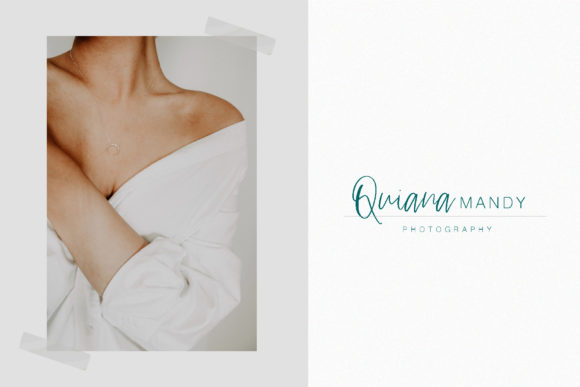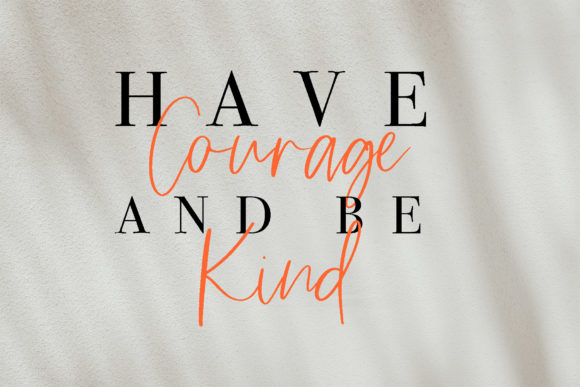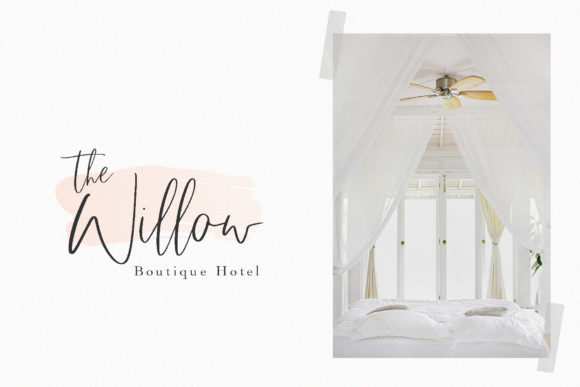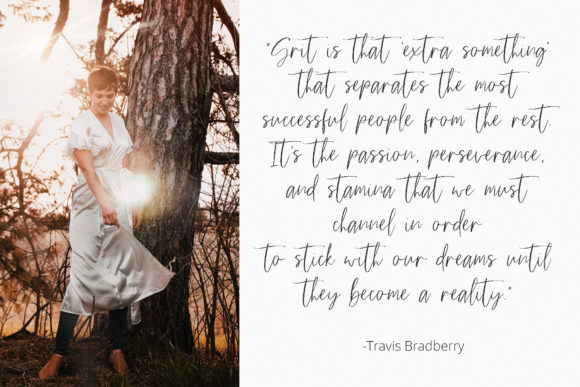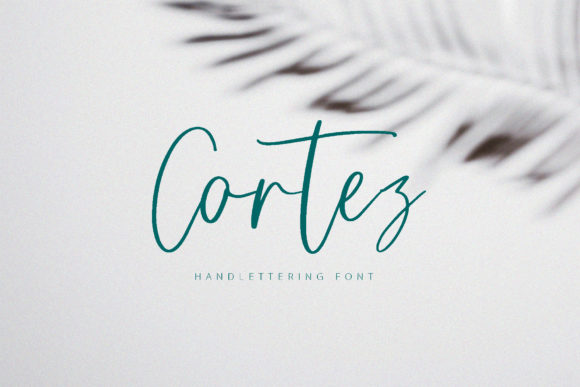
Cortez Font: Elevate Your Design with a Classy Script
Cortez is a stunning script font that exudes elegance and sophistication. With its stylish feel and versatility, it’s perfect for personal branding, design projects, and various creative endeavors. In this article, we’ll dive into the world of Cortez Font, exploring its features, uses, and benefits for designers and crafters.
The Essence of Cortez Font
Cortez is a carefully crafted script font that boasts a unique blend of classic and modern elements. Its flowing lines, intricate details, and refined aesthetic make it an excellent choice for designs that require a touch of luxury and sophistication. Whether you’re working on a personal branding project, a wedding invitation, or a high-end product label, Cortez Font is sure to impress.
Key Features of Cortez Font
- Stylish Feel: Cortez Font features a stylish and modern feel that sets it apart from other script fonts.
- Elegant Lines: The font’s flowing lines and intricate details create a sense of elegance and sophistication.
- Versatility: Cortez Font is perfect for a wide range of design projects, from personal branding to packaging and advertising.
- Easy to Read: Despite its ornate details, Cortez Font remains easy to read, making it suitable for body text and headlines.
Uses of Cortez Font
Cortez Font is an incredibly versatile typeface that can be used in various design projects, including:
- Personal Branding: Establish a luxurious and sophisticated brand identity with Cortez Font.
- Wedding Invitations: Add a touch of elegance to your wedding invitations and stationery.
- Packaging Design: Elevate your product packaging with a sophisticated and eye-catching label.
- Advertising: Create stunning ad campaigns with Cortez Font’s stylish and attention-grabbing aesthetic.
Cortez Font offers numerous benefits for designers and crafters, including:
- Time-Saving: With Cortez Font, you can create stunning designs quickly and efficiently.
- Unique Designs: The font’s distinctive style ensures that your designs stand out from the crowd.
- Easy to Customize: Cortez Font is easy to customize, allowing you to tailor it to your specific design needs.
- High-Quality: The font is crafted with high-quality code, ensuring that it looks great in any design.
Tips for Using Cortez Font
To get the most out of Cortez Font, follow these expert tips:
- Pair with Simple Fonts: Combine Cortez Font with simple fonts to create a striking contrast.
- Experiment with Colors: Try out different color schemes to find the perfect match for your design.
- Use for Headlines: Cortez Font is perfect for headlines and titles, adding a touch of elegance to your design.
Cortez Font is a classy script font that offers a stylish feel and versatility, making it perfect for personal branding, design projects, and various creative endeavors. With its elegant lines, intricate details, and easy-to-read design, Cortez Font is sure to elevate your designs and set you apart from the competition. Whether you’re a designer, crafter, or DIY enthusiast, Cortez Font is an excellent addition to your font library.